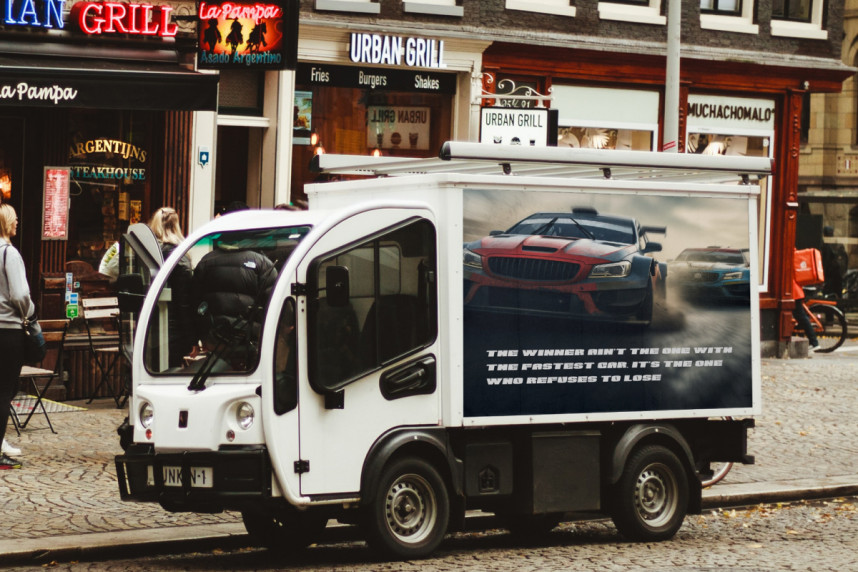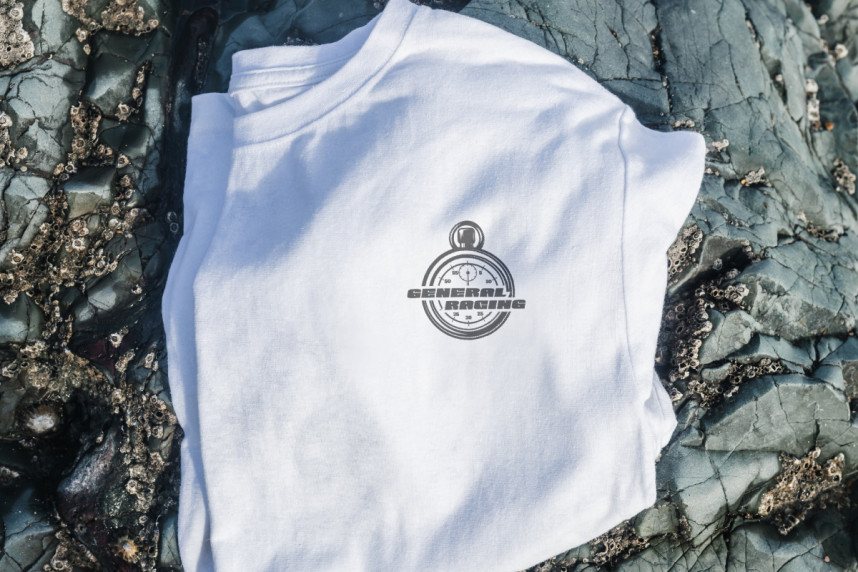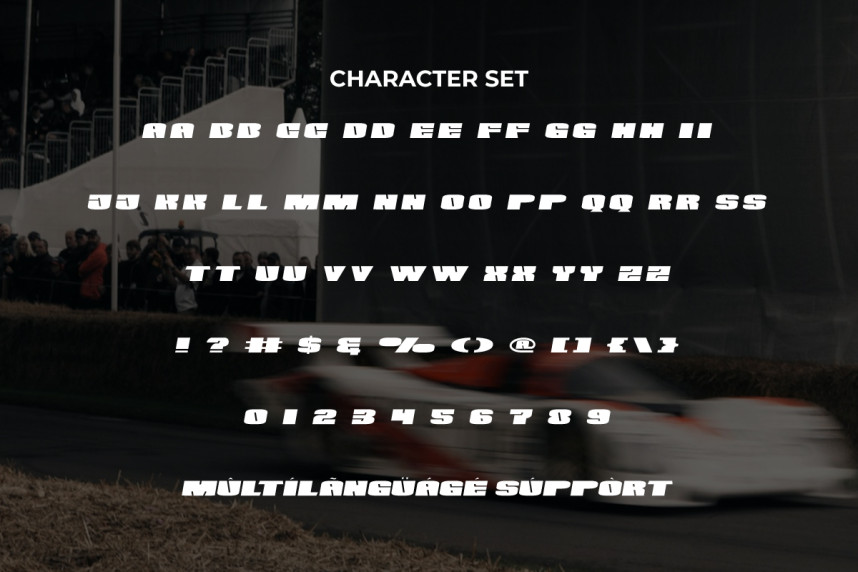
General Racing Font
General Racing Font is a modern a bold trendy racing and stylish racing display font, by RaisProject. Despite being bold, display this font is still easy to read and can immediately catch the attention of anyone who sees it. It will be good for label, poster, invitation, signage, cover, menu, custom design, brand image, product packaging, quotes, stationery, web, and more!
General Racing Font includes a full set of Uppercase and Lowercase Letters, Numerals, Punctuation and Symbol. This beautiful font will be suitable for various industries, such as automotive, sports, game, movie, fashion, accessories, advertisement, event or festival, cafe, printing, publishing, etc.